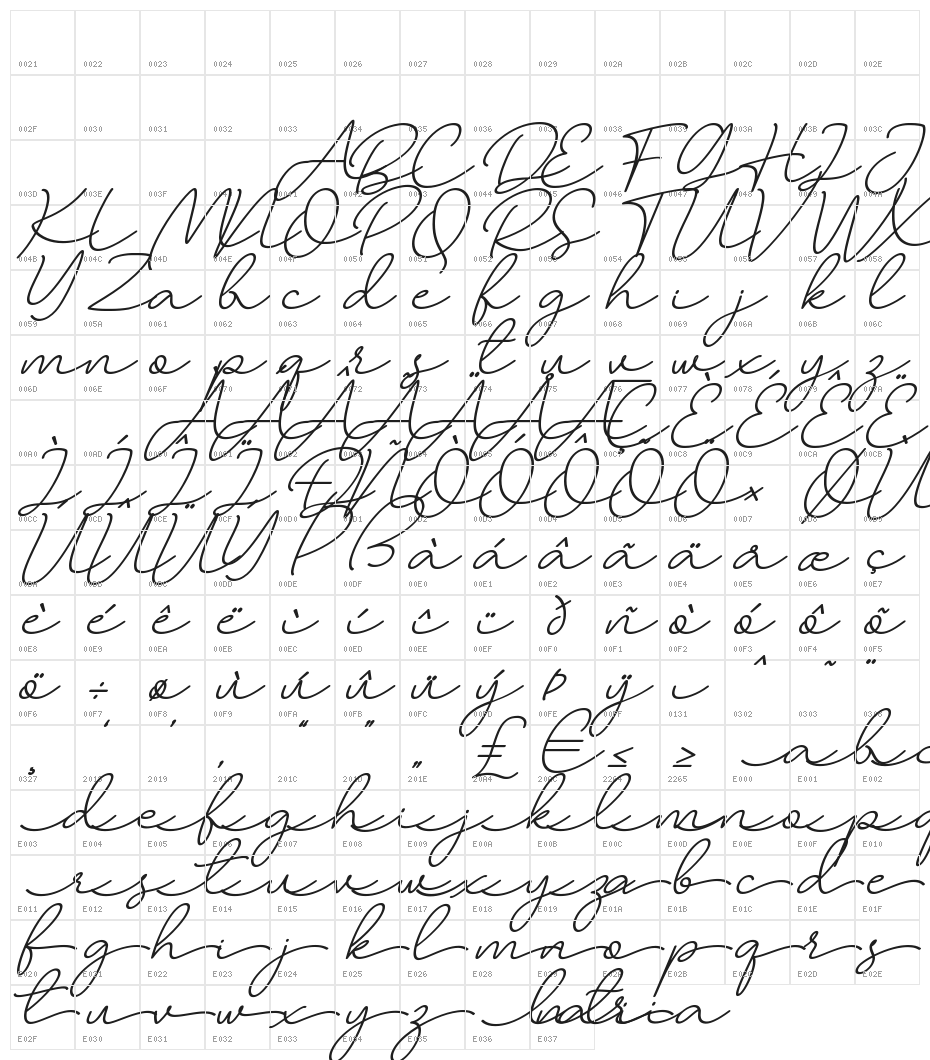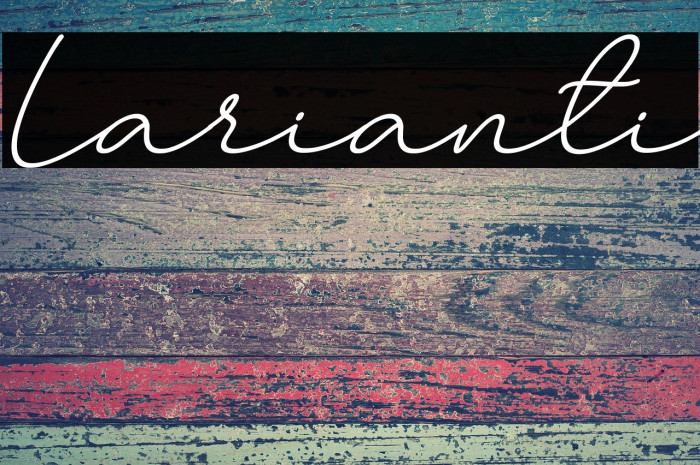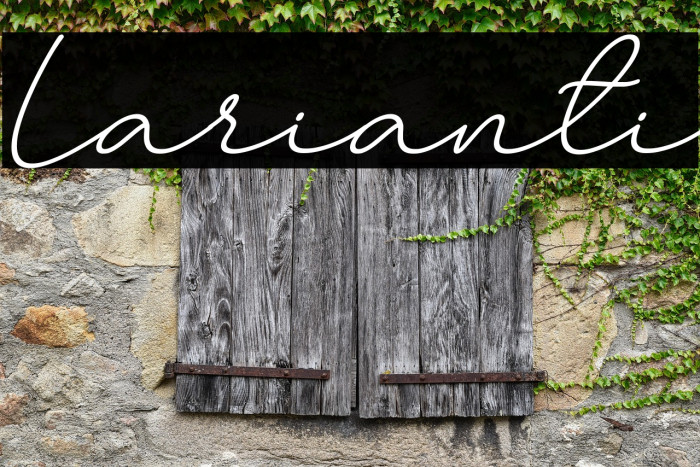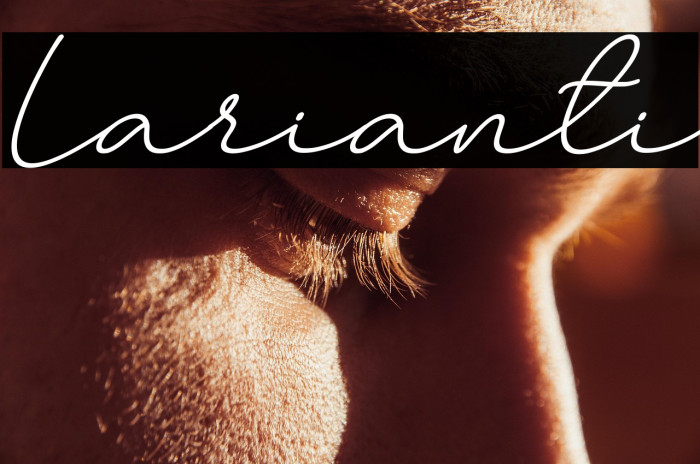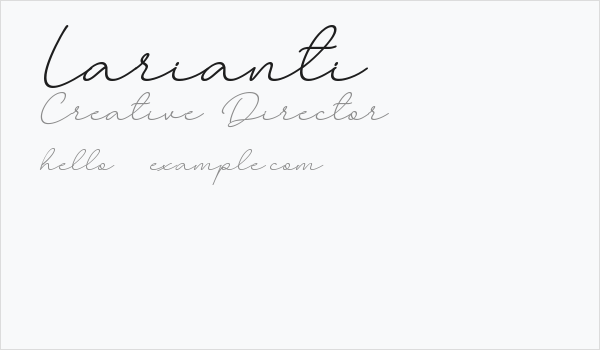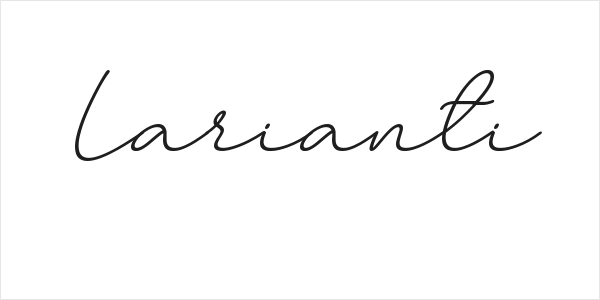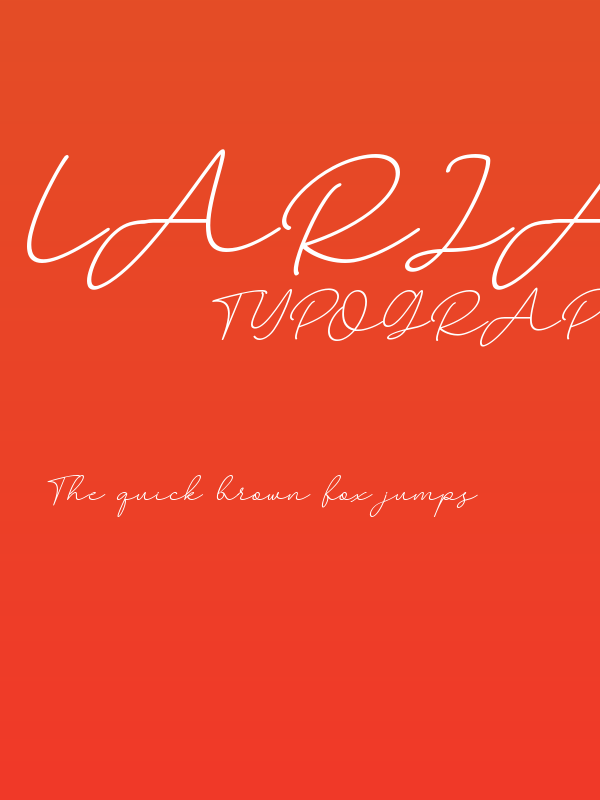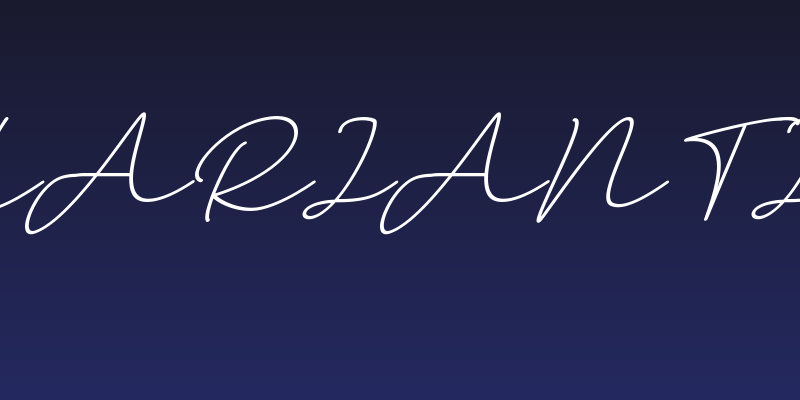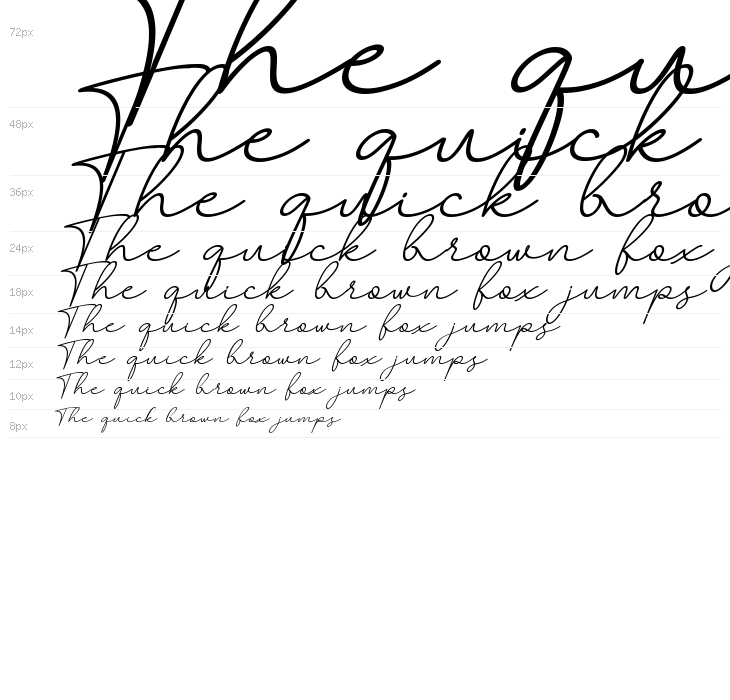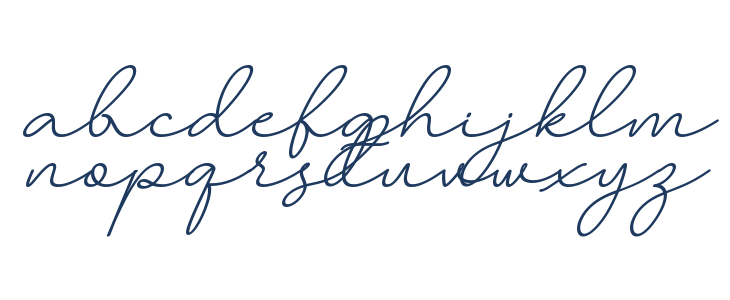
Larianti Font
Larianti Description
This elegant script font features fluid, connected strokes that emulate the style of cursive handwriting. The letters are gracefully elongated with a consistent slant, providing a sense of motion and sophistication. The uppercase characters are slightly larger and more ornate, while the lowercase letters maintain a smooth, flowing appearance. The font's thin lines and delicate curves give it a refined and airy feel, making it suitable for formal and decorative applications. Its overall design is both classic and contemporary, offering versatility in various design contexts.
| Overall Style | Elegant, Classic |
| Use Case | Invitations, Branding, Decorative Text |
| Proposed Projects | Ideal for wedding invitations, elegant branding, personal stationery, and decorative headings. |